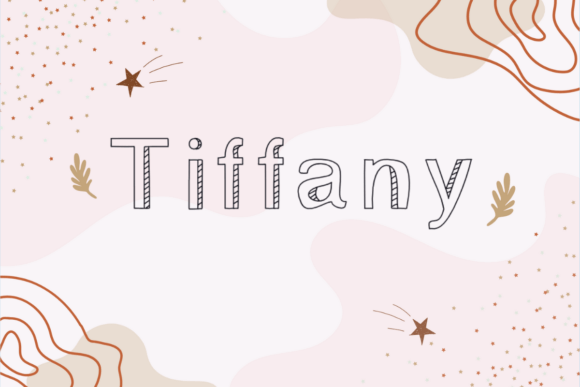
Tiffany Font Download Display Fonts: Fonts have personalities some are serious and formal, while others are cheerful and friendly. The Tiffany font falls squarely into the second category. With its handwritten, decorative style, Tiffany brings a touch of joy and creativity to any project. It’s a font that feels welcoming, playful, and full of life perfect for designs that aim to inspire, teach, and spread positivity.
If you work in kids’ content, education, DIY crafts, or creative hobbies, this is a font worth adding to your design toolkit. Let’s explore its unique charm, uses, and where you can find it for free.
A Friendly Handwritten Style
The Tiffany font’s charm lies in its handwritten look. Unlike strict, geometric typefaces, Tiffany has curves, loops, and strokes that feel human-made. This makes it especially appealing for projects that need a warm, personal touch.
Key traits of the Tiffany font style:
Decorative Details – Playful swashes and curls that give it personality.
Natural Flow – Strokes connect smoothly, mimicking real handwriting.
Readable but Fun – Clear enough for educational materials, yet lively enough for crafts.
Adaptable – Works well in large headlines or smaller text in decorative contexts.
Perfect for Kids, Education & Craft Projects
Some fonts feel too corporate for certain designs — Tiffany is the opposite. It thrives in spaces where imagination and fun are encouraged.
1. Children’s Books & Worksheets
Its friendly appearance makes it inviting for young readers. You can use it in titles, captions, or activity instructions to make learning less intimidating.
2. Classroom Decorations
From bulletin boards to wall charts, Tiffany adds personality and energy to educational spaces. Teachers often choose fonts like this for alphabet displays, reading corners, or motivational posters.
3. DIY Crafts & Cricut Projects
If you use cutting machines like Cricut or Silhouette, the Tiffany font is fantastic for vinyl lettering, greeting cards, scrapbooking, and gift tags.
4. Invitations & Party Materials
For birthdays, baby showers, or themed events, Tiffany’s decorative curves fit perfectly with playful party designs.
5. Educational Apps & Websites
Developers who design for children’s learning platforms often use handwritten fonts to make interfaces more relatable and less formal.
Color & Style Pairings
While Tiffany looks beautiful in plain black, it truly shines when paired with colors and textures that match its cheerful vibe.
Bright Colors – Think primary reds, blues, and yellows for kids’ materials.
Pastel Shades – Perfect for baby shower invitations or gentle educational themes.
Chalkboard Backgrounds – Tiffany looks like handwriting on chalkboards, ideal for classroom or café designs.
Textured Paper – For crafts, printing Tiffany on textured card stock gives it a handmade feel.
Alternatives to the Tiffany Font
If you can’t find the exact Tiffany font, there are many free handwritten typefaces that share its decorative, playful look.
Pacifico – Smooth and curvy with a friendly attitude.
Amatic SC – Narrow, whimsical handwriting style.
Dancing Script – Lively cursive with a bouncing baseline.
Allura – Elegant yet relaxed script font.
Comic Neue – A cleaner, modern take on the Comic Sans style.
Tips for Using Tiffany in Design
Because Tiffany is decorative, it’s best used in short text or headlines rather than long paragraphs. Here’s how to make the most of it:
Keep it Large – Decorative details are more noticeable in bigger sizes.
Pair with Simple Fonts – Use a clean sans-serif (like Arial or Montserrat) for body text alongside Tiffany headlines.
Leave Space – Avoid crowding; give the letters breathing room so their loops and swirls stand out.
Use Color Wisely – Bright colors work for kids’ materials; muted tones work for crafts and invitations.
Why the Tiffany Font Connects with Audiences
Fonts can influence how people feel about what they’re reading. Tiffany’s hand-lettered style feels personal, welcoming, and fun. For children, it’s approachable. For adults, it recalls creativity and playfulness.
Designers love it because it bridges the gap between decorative artistry and practical readability — a rare combination in handwritten fonts.
FAQs About Tiffany Font
It’s a font that inspires — not just with words, but with the way those words are shaped. If you want your next project to feel personal, approachable, and full of life, try Tiffany or one of its free alternatives today.